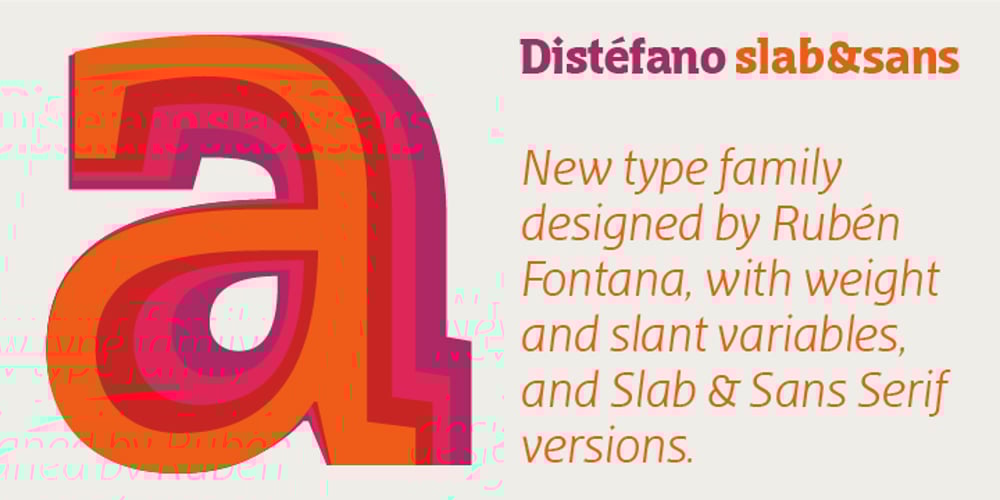
Distefano Slab
Distefano Slab font
Distefano Slab Font Family was designed by Rubén Fontana and published by Tipo. Distefano Slab contains 8 styles and family package options. Designed from the perspective of a multi-purpose font family, comprehending the slab-serif and humanist-sans subtypes, the Distéfano typefaces were specifically developed and subsequently tested considering the needs of editorial products, for both print and digital media. Includes a comprehensive program where formal, style, thickness and slant attributes are especially indicated for the composition of text and headings in newspapers, journals and magazines. For that reason, in addition to the more traditional weights, others, ranging from Light to Black were added. The identity and systemic criteria of this font family doesn’t fall short on diversity of specific solutions, flair and quirks for each variant, especially noticeable in the contrast of the italics to the roman styles. The original drawings of Distéfano date back to 1983; embodied in pencil on paper, provided only the alphabetical characters and punctuation signs for Spanish, and the Sans Serif family. By digitalizing them, their possibilities of use were widened, the set of characters of each typeface were considerably completed considering the current requirements for the majority of the latin and germanic languages, and the slab-serif family was developed. This type family bears the name of the most notable argentinian designer, and it is a homage to his work, that influenced the youth of the 50’s decade of the 20th century, and especially to him, whom I have always recognized as a friend, and a teacher.